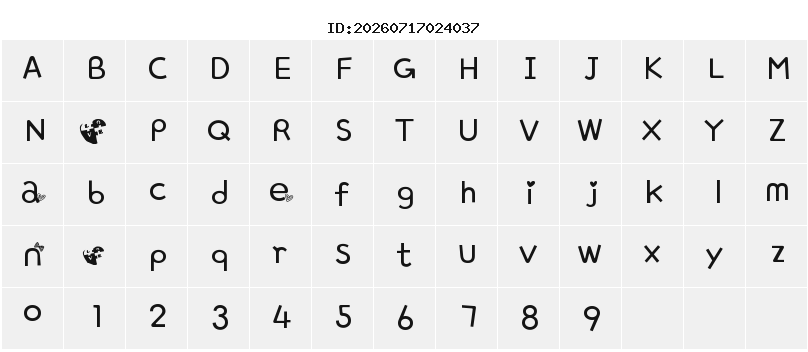
• Font Name: AC L O V E
• Full Font Name: AC L O V E
About AC L O V E.ttf
AC L O V E.ttf is a modern, elegant sans-serif font designed for ultimate readability and visual harmony. Perfect for branding, headlines, web design, and print materials.